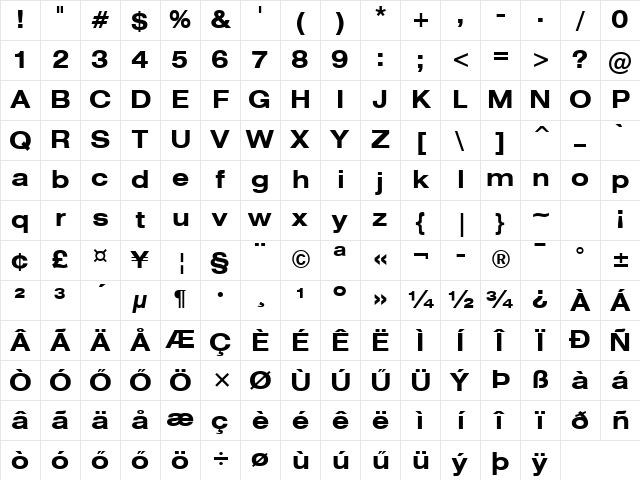
Huni_Swiss 733 Ex WS Bold Regular
Design Context for Huni_Swiss 733 Ex WS Bold
Huni_Swiss 733 Ex WS Bold is a composed and adaptable typeface that performs quietly and consistently across a wide range of design contexts. Its bold stroke weight gives it real presence on the page.